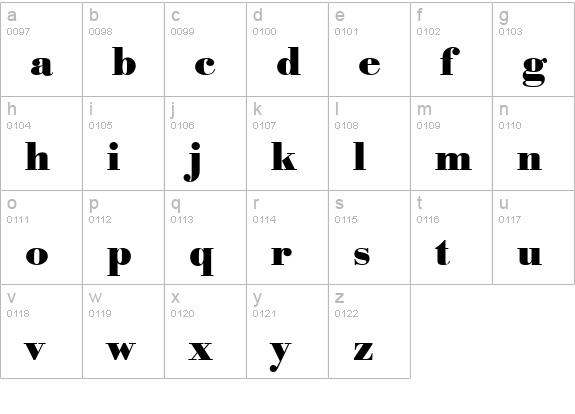
Poster Regular Font Details
Poster Regular is the standard, neutral variant in the Poster typeface family \xE2\x80\x94 well suited to general body text, paragraphs, and standard typographic work.
The Poster Regular font is a versatile and modern typeface that is perfect for a wide range of design projects. With its clean lines and elegant curves, this font exudes sophistication and style. Whether you're creating posters, flyers, or branding materials, Poster Regular is sure to make your text stand out. Best of all, this font is available for free download at FontsMarket.com. You can easily add this stylish font to your collection and start using it in your projects right away. Don't miss out on the opportunity to enhance your designs with the Poster Regular font today!